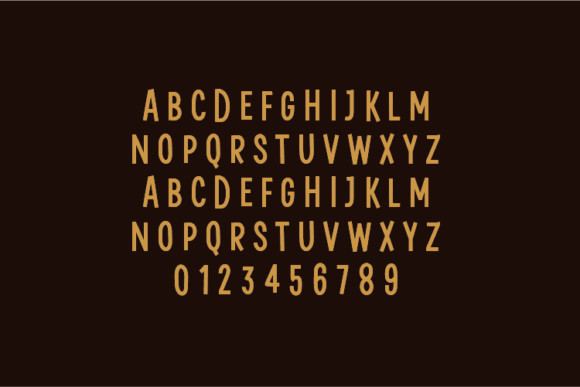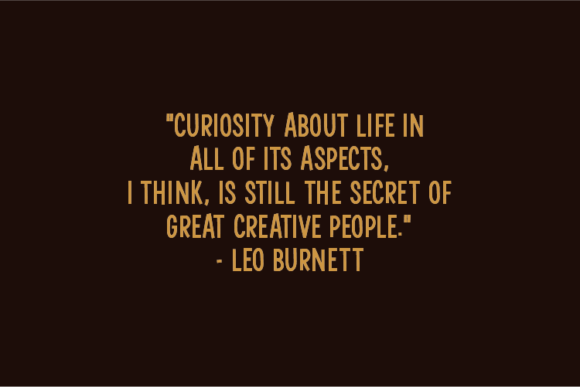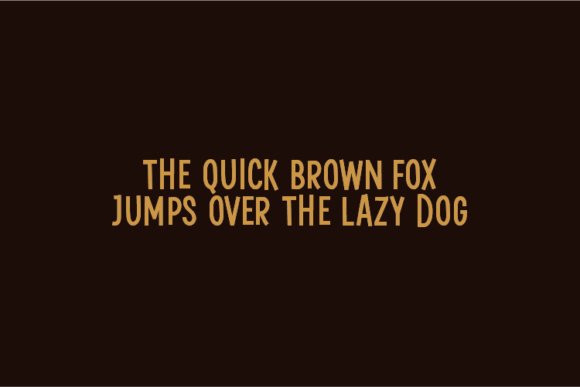
Discover the Unique Charm of Grounding Font: Elevate Your Designs with Its Versatility
In the realm of typography, fonts play a pivotal role in conveying messages, evoking emotions, and adding personality to designs. Among the myriad of fonts available, Grounding Font stands out as a distinctive and captivating sans serif font that has been gaining attention for its unique style and versatility. Whether you’re a designer looking for the perfect typography for your next project or a crafter seeking an eye-catching font for your DIY endeavors, Grounding Font is sure to impress.
The Essence of Grounding Font
Grounding Font is an interesting and unique sans serif font that has been crafted to perfection for those who appreciate the beauty in simplicity and elegance. Its clean lines, balanced proportions, and modern aesthetic make it an ideal choice for a wide range of applications. From quotes and notes to T-shirts and more, Grounding Font brings a touch of sophistication and charm to any design.
Why Choose Grounding Font?
So, what makes Grounding Font a standout choice for designers and crafters alike? Here are a few reasons why this font has become a favorite among creative enthusiasts:
- Versatility: Grounding Font boasts an incredibly versatile style that can seamlessly adapt to various design projects. Whether you’re working on a minimalist poster, a detailed infographic, or a casual T-shirt design, this font fits right in.
- Readability: The clear and legible nature of Grounding Font ensures that your message is conveyed effectively, making it perfect for quotes, notes, and other textual content.
- Aesthetic Appeal: With its unique sans serif design, Grounding Font adds a modern and stylish touch to any design, elevating it from ordinary to extraordinary.
- Ease of Use: Designed with user-friendliness in mind, Grounding Font can be easily integrated into various design software, making it accessible to both beginners and professionals.
Endless Design Possibilities with Grounding Font
The versatility of Grounding Font opens up a world of creative possibilities. Here are some ideas to get you started:
- Quotes and Inspirational Messages: Use Grounding Font to create visually appealing quotes and inspirational messages that resonate with your audience.
- T-Shirts and Apparel: Add a touch of style to your T-shirt and apparel designs with Grounding Font, making them stand out in a crowd.
- Notes and Journals: Enhance your notes and journal entries with Grounding Font, adding a personal and artistic touch to your written content.
- Posters and Flyers: Create eye-catching posters and flyers with Grounding Font, perfect for advertising events, promotions, or causes.
- Digital Content: Incorporate Grounding Font into your digital content, such as blog posts, social media graphics, and presentations, to add a professional and modern flair.
Tips for Maximizing the Potential of Grounding Font
To make the most of Grounding Font, consider the following tips:
- Experiment with Colors: Play around with different color schemes to find the perfect combination that complements your design and the essence of Grounding Font.
- Mix and Match: Don’t be afraid to combine Grounding Font with other typography or design elements to create a unique and captivating visual experience.
- Pay Attention to Spacing: Ensure that your design has adequate spacing to maintain readability and allow Grounding Font to shine.
- Be Creative: Above all, let your creativity flow! Grounding Font is a versatile tool that can help bring your imaginative ideas to life.
Grounding Font is more than just a typography; it’s a creative companion that can elevate your designs and add a unique touch to your projects. With its versatile style, readability, and aesthetic appeal, it’s no wonder that Grounding Font has captured the hearts of designers and crafters worldwide. So, fall in love with its charm and use it to create spectacular designs that leave a lasting impression!